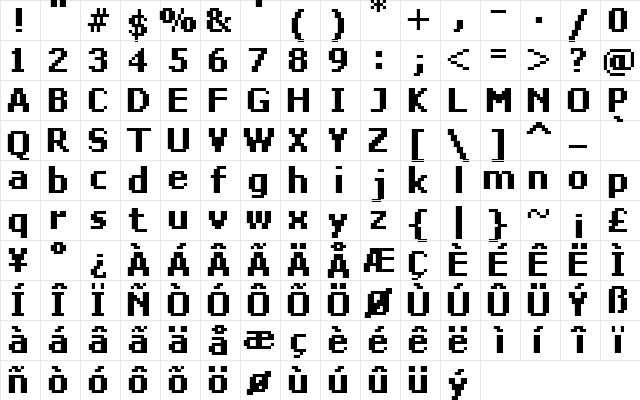
FFF Star Bold Condensed Regular
Complete FFF Star Bold Condensed Regular glyph index. Displaying only characters natively supported by FFF Star Bold Condensed Regular font.
Design Context for FFF Star Bold Condensed
FFF Star Bold Condensed is a composed and adaptable typeface that performs quietly and consistently across a wide range of design contexts. Its bold stroke weight gives it real presence on the page. Its narrow stance lets it pack a punch even in space-constrained designs.